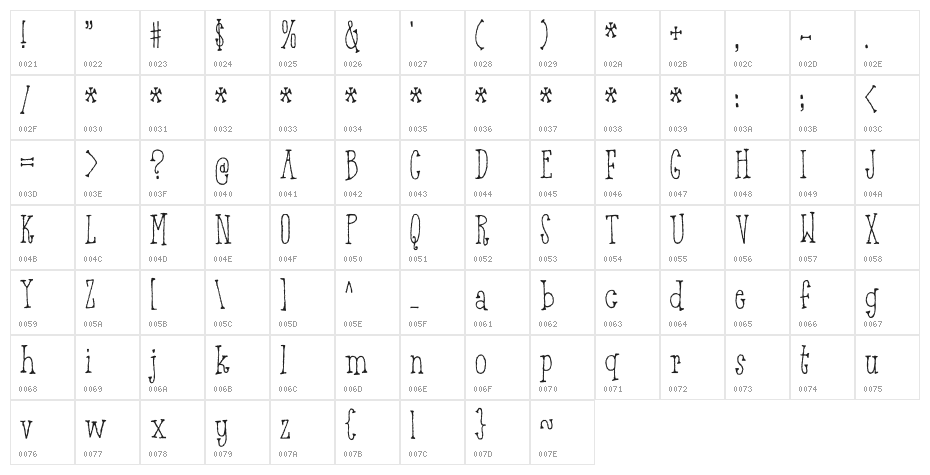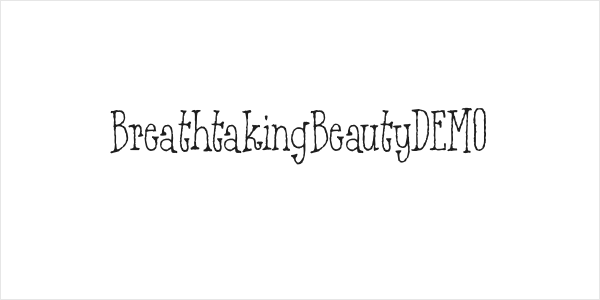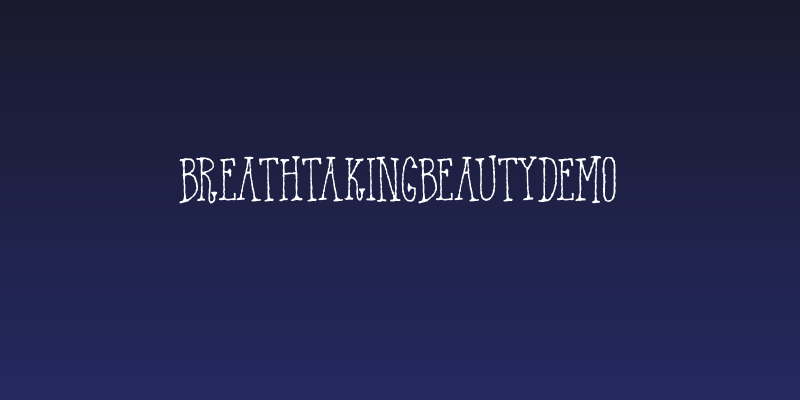
BreathtakingBeautyDEMO Font
BreathtakingBeautyDEMO Description
This font features a unique, hand-drawn style with a slightly distressed appearance, giving it a rustic and organic feel. The characters are tall and narrow, with uneven strokes that add to its handcrafted charm. The uppercase letters are bold and prominent, while the lowercase letters maintain a consistent style with a playful touch. The numbers and special characters are designed to match the overall aesthetic, making the font versatile for various creative projects. Its distinctive look makes it ideal for designs that require a personal and artistic touch.
| Proposed Projects | Ideal for invitations, posters, branding, and any project requiring a personal, artistic touch. |